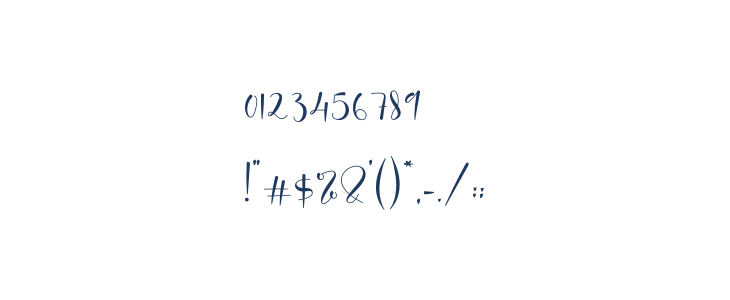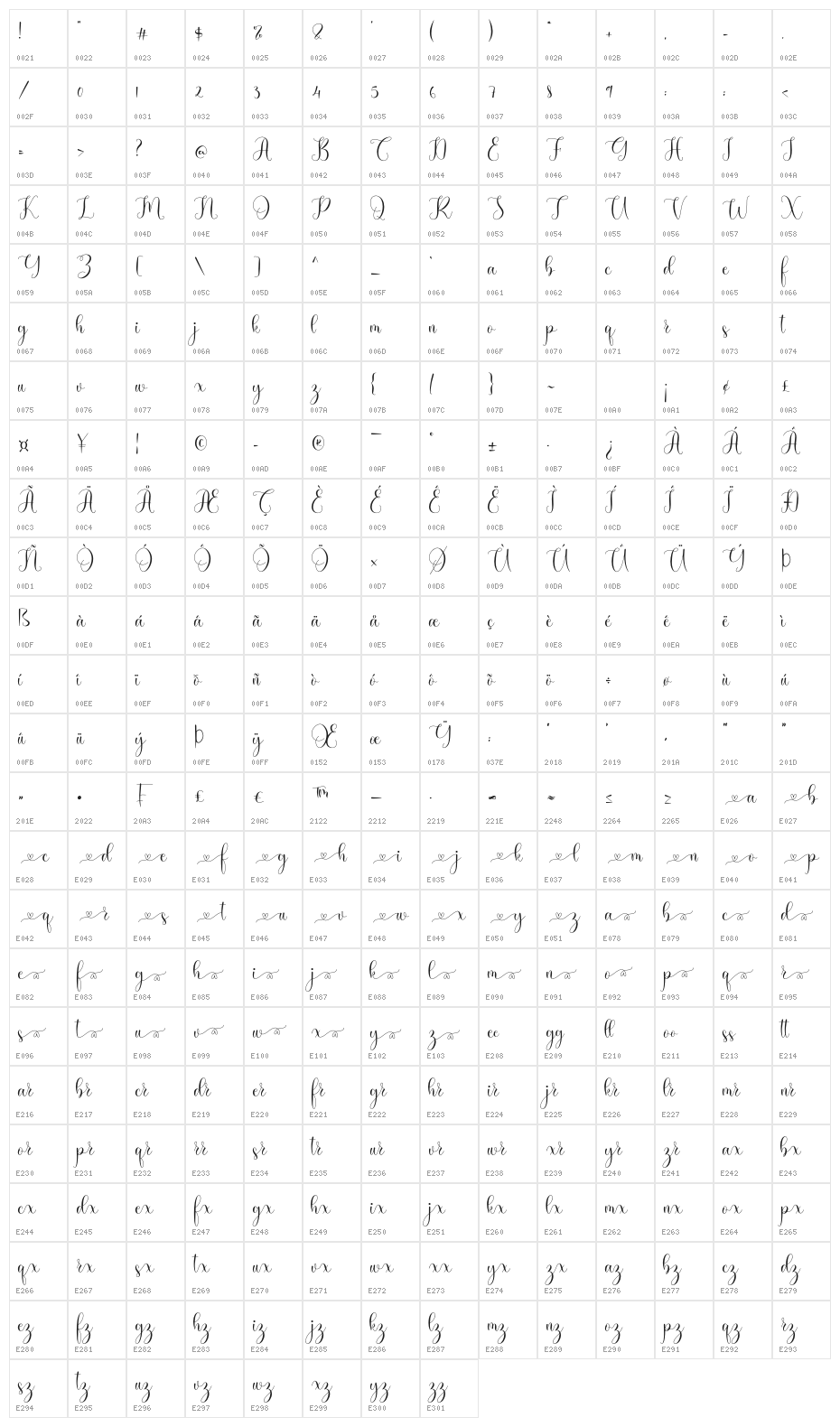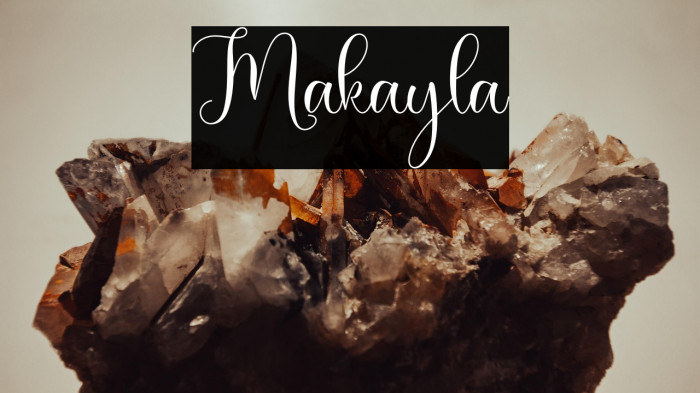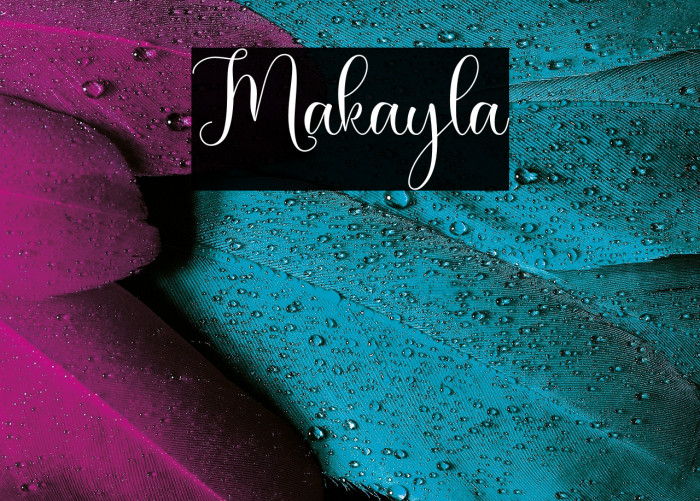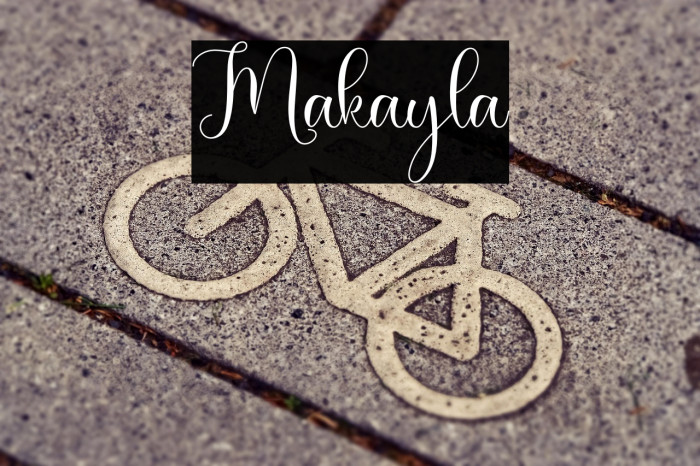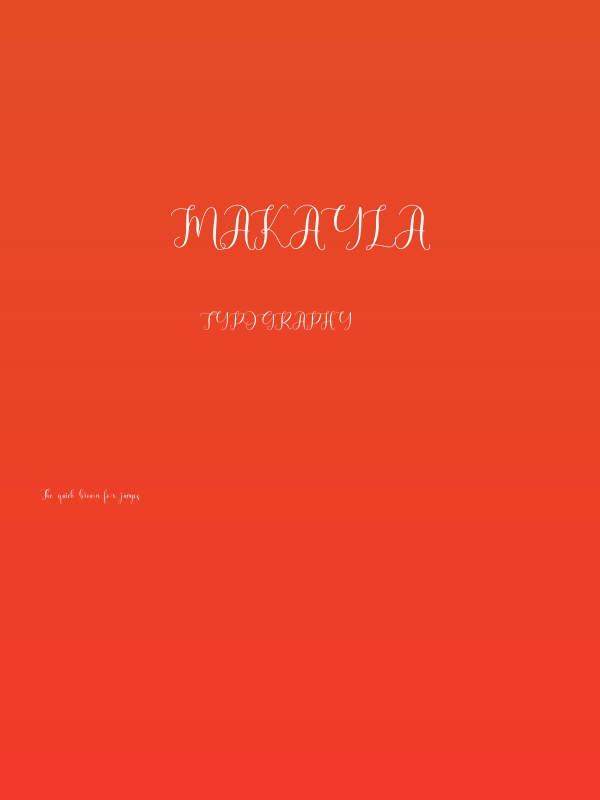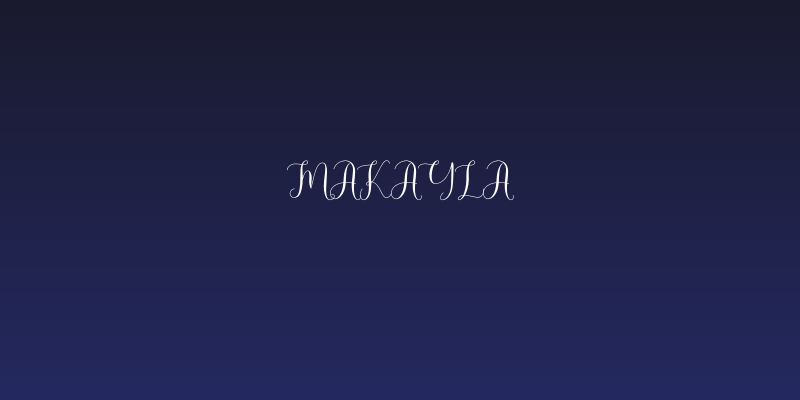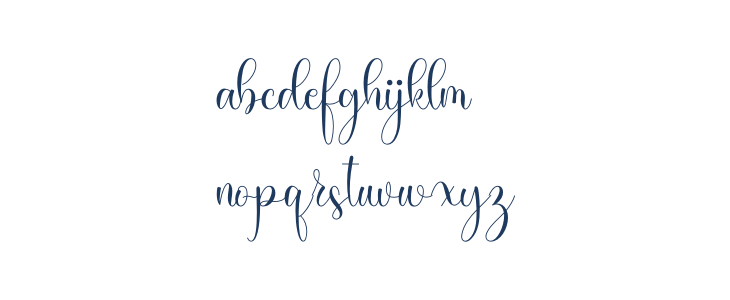
Makayla Font
Makayla Description
This elegant script font features flowing, interconnected letters with a calligraphic style. The uppercase letters are ornate, with sweeping curves and flourishes that give a sense of movement and grace. The lowercase letters maintain a consistent style, with some characters extending below the baseline, adding to the font's dynamic appearance. The numerals are distinct and maintain the same elegant style, ensuring readability while preserving the overall aesthetic. Special characters are included, matching the font's decorative and sophisticated design. This font is perfect for projects that require a touch of elegance and sophistication.
| Proposed Projects | Ideal for wedding invitations, elegant branding, greeting cards, and upscale packaging. |